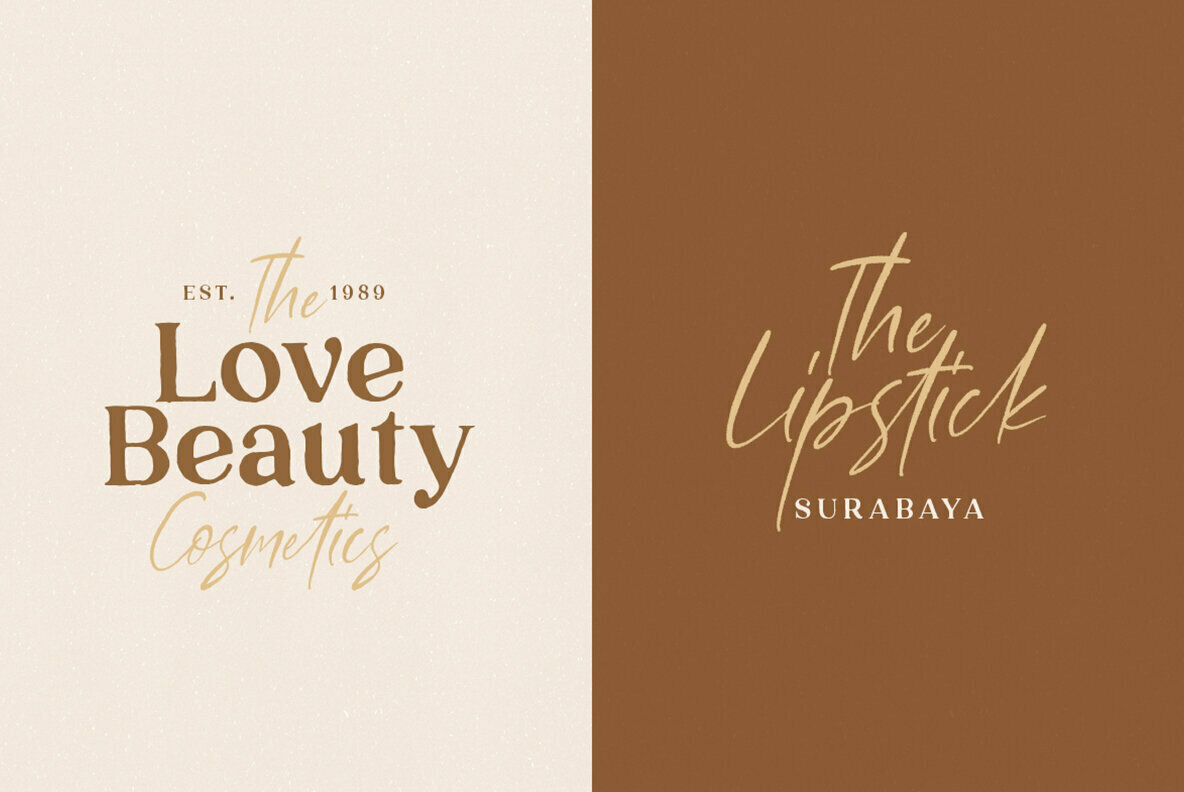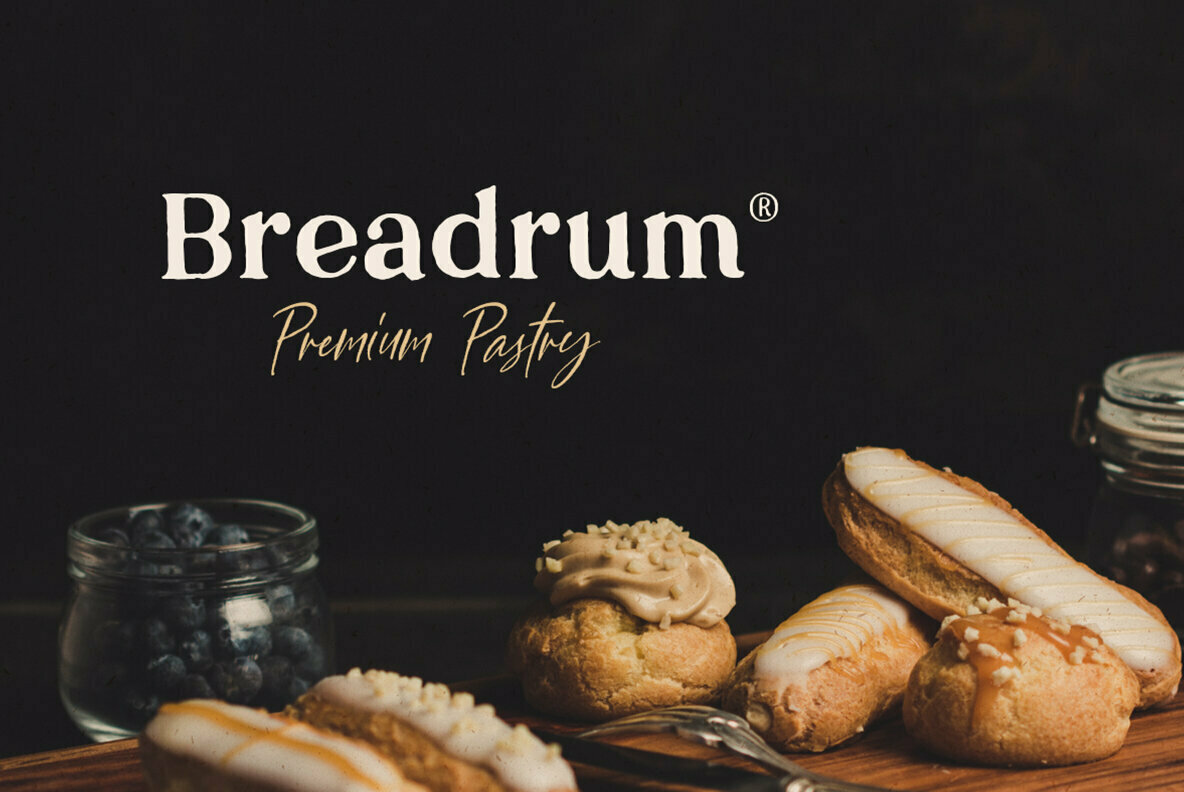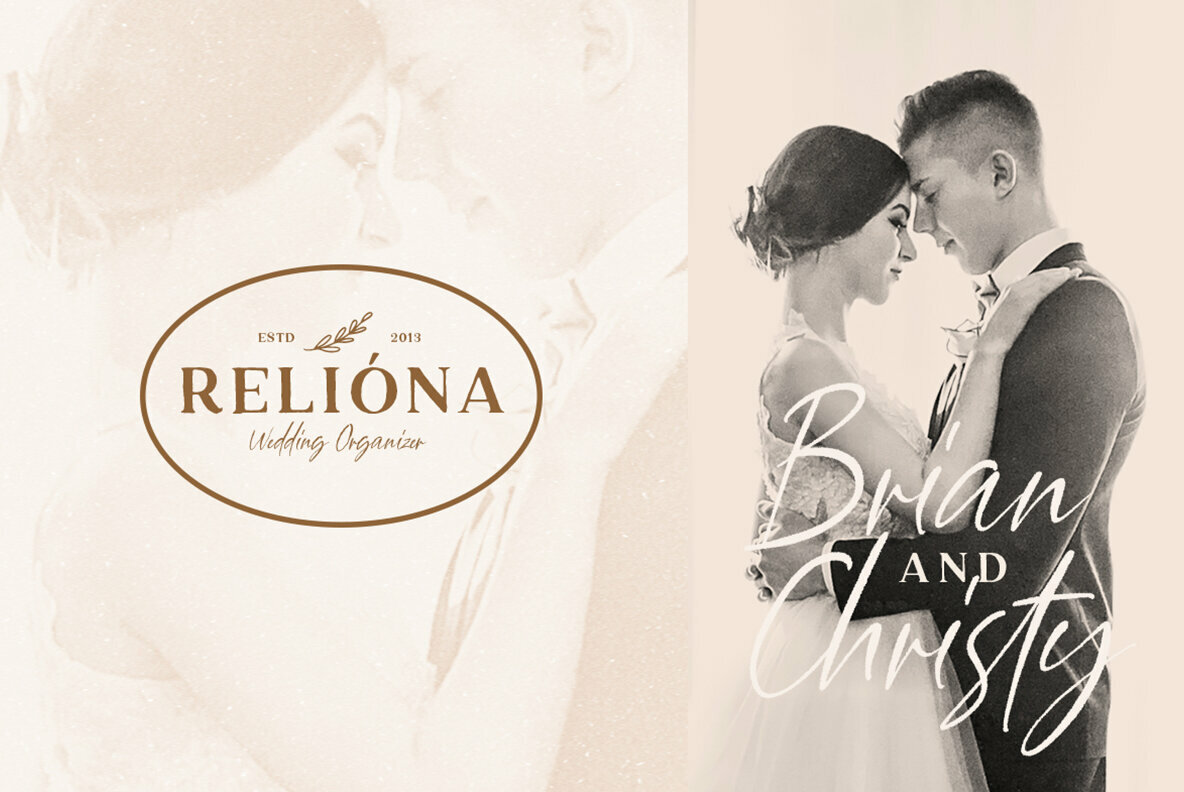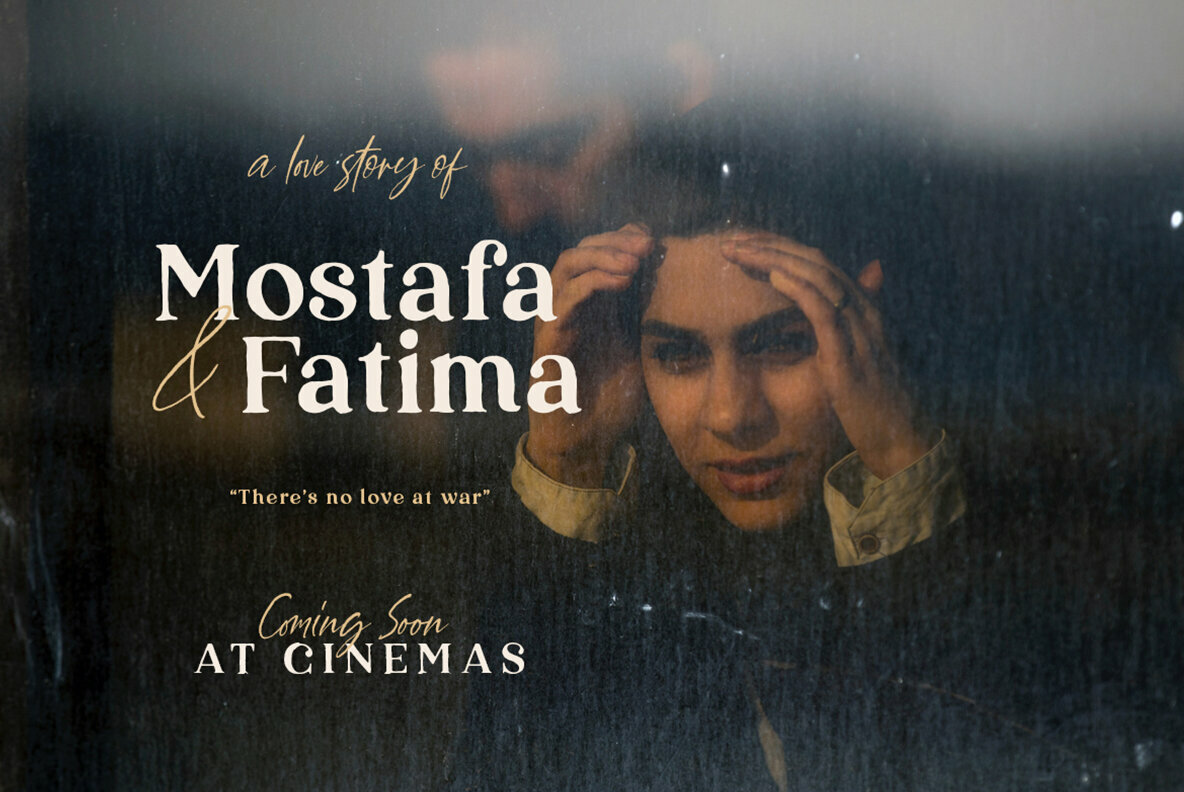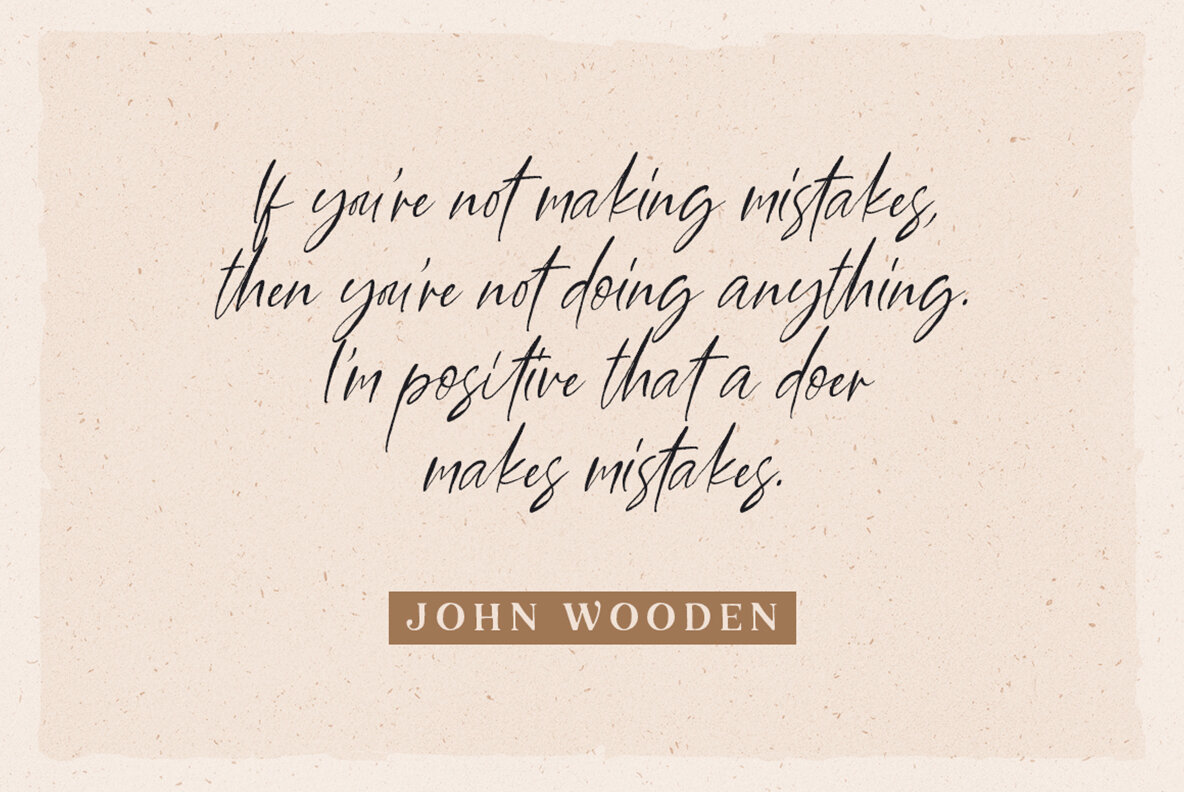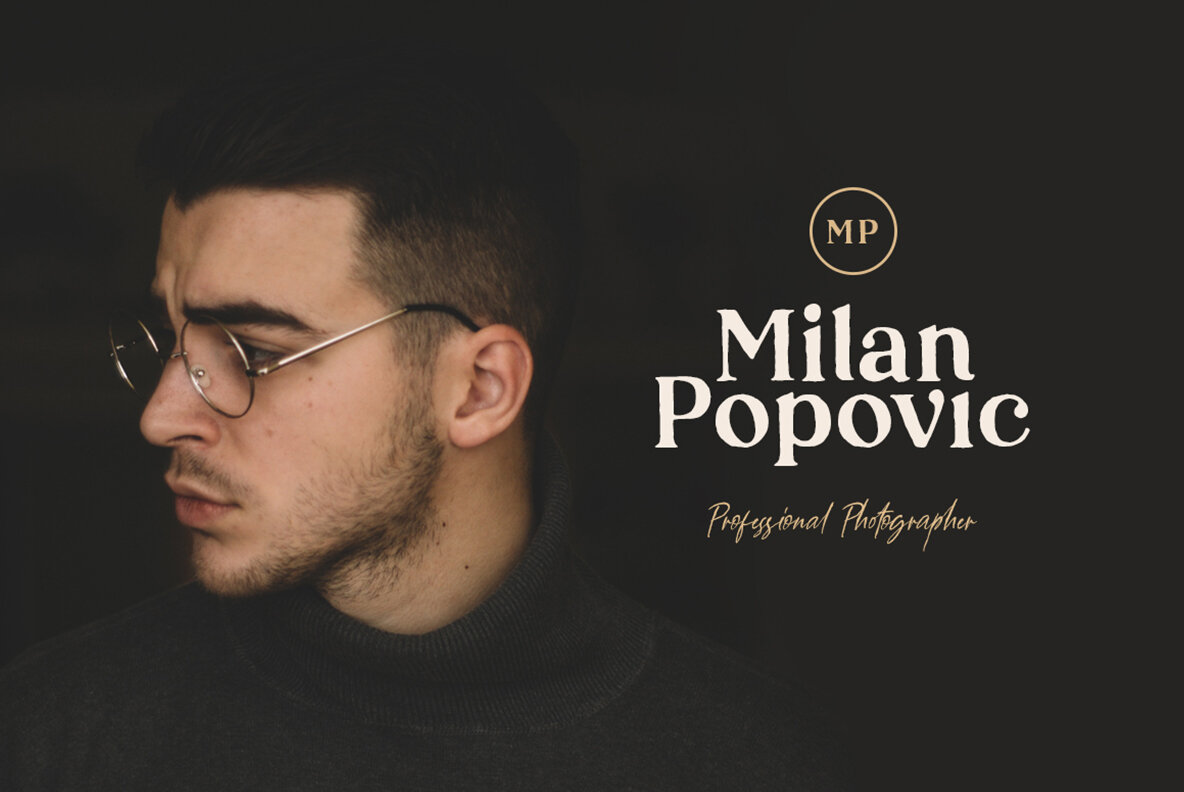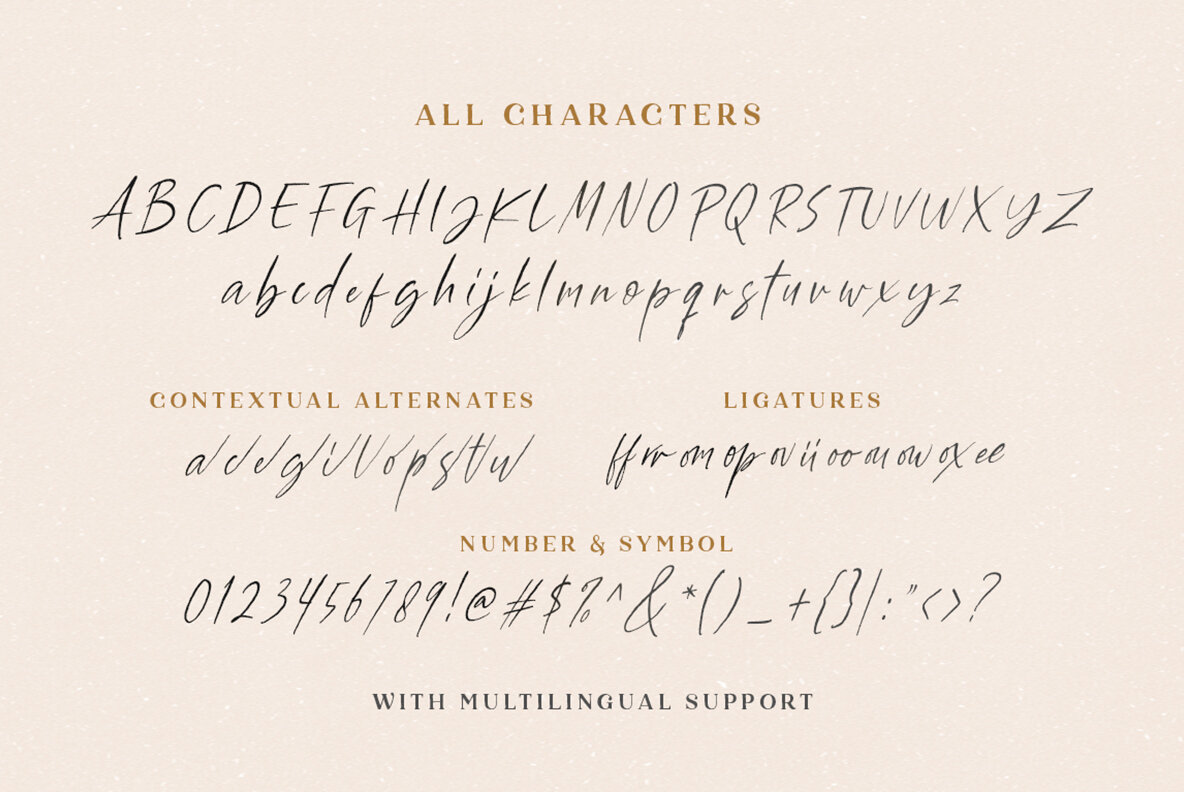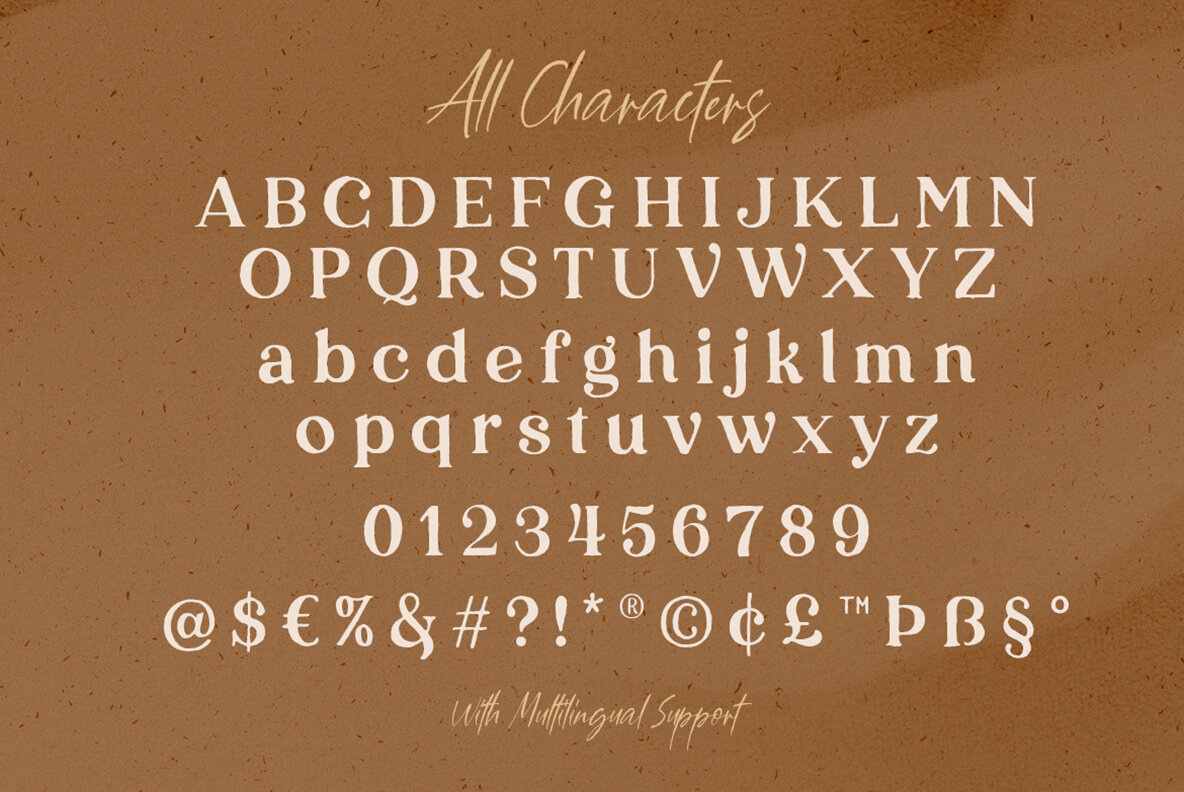
Louise Walker Font
Louise Walker Script
Louise Walker Serif
Louise Walker offers a harmonious blend of serif and script fonts tailored for versatile design needs. This font duo encompasses an organic serif paired effortlessly with a free-flowing handwritten signature script, making it a valuable asset for any designer's toolkit.Louise Walker: Organic Serif & Script Duo